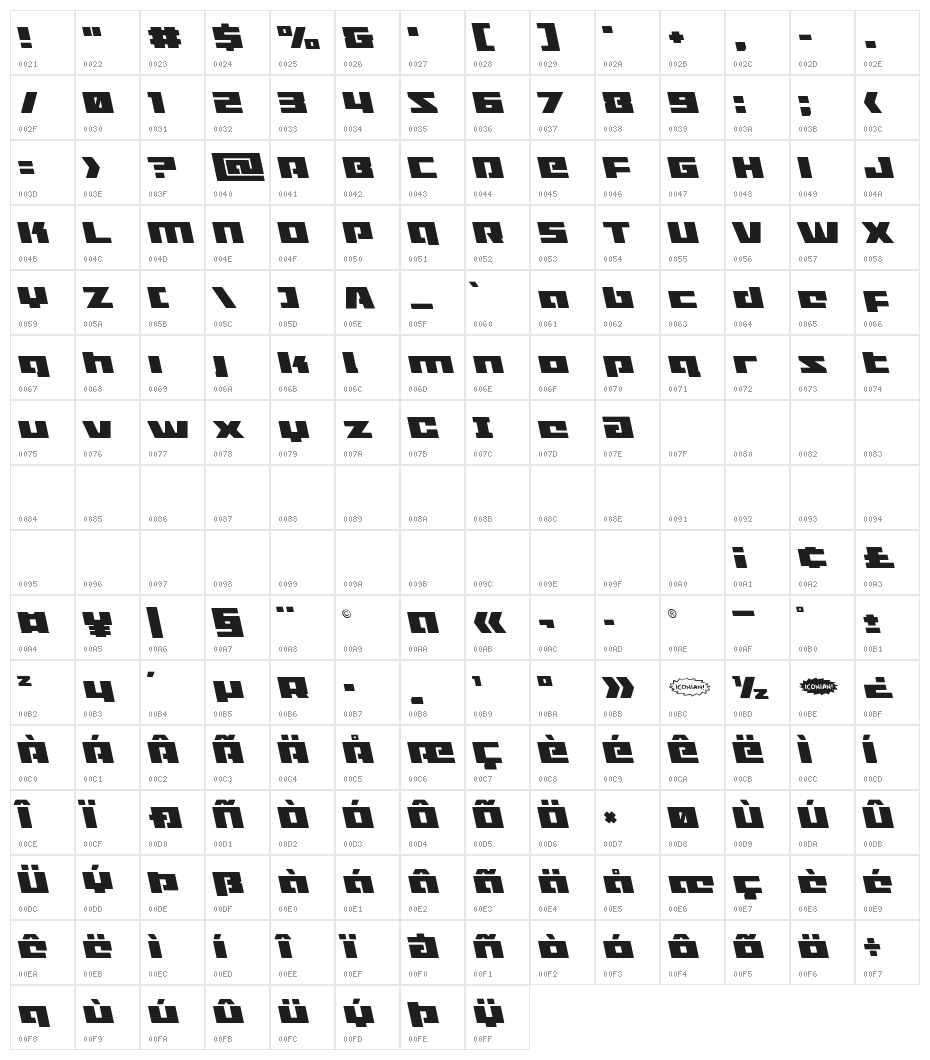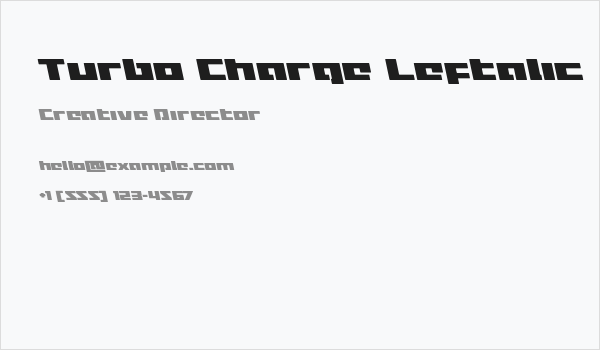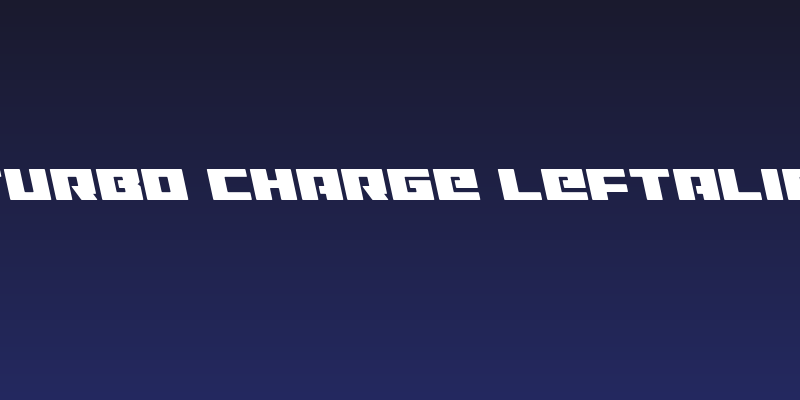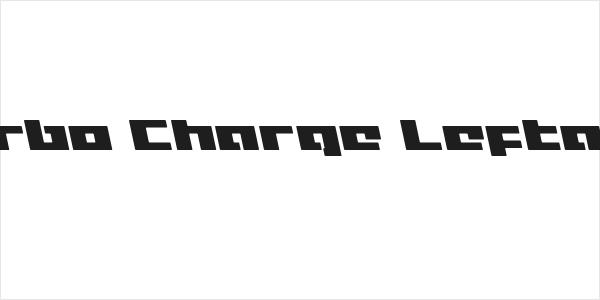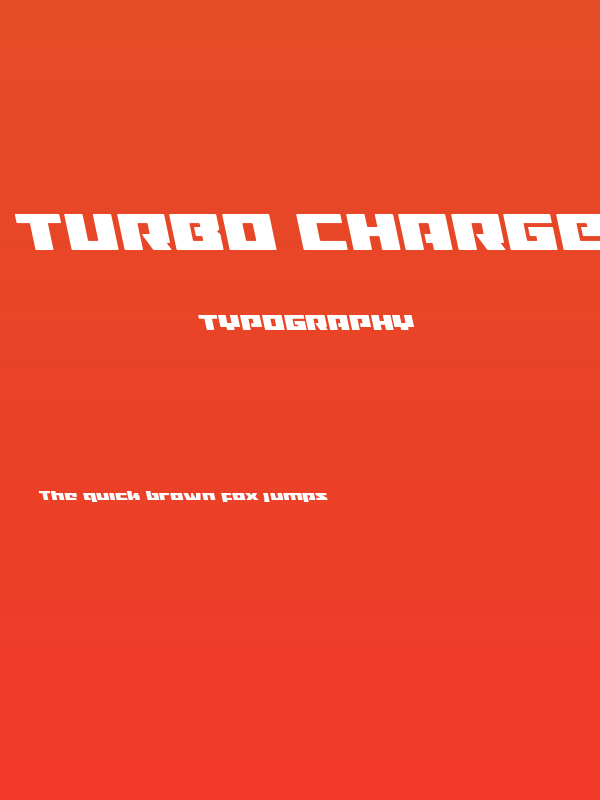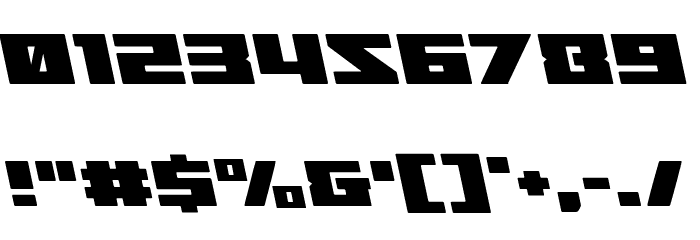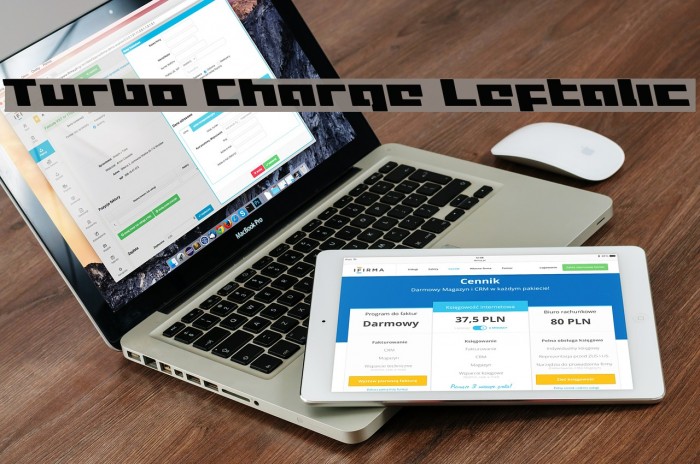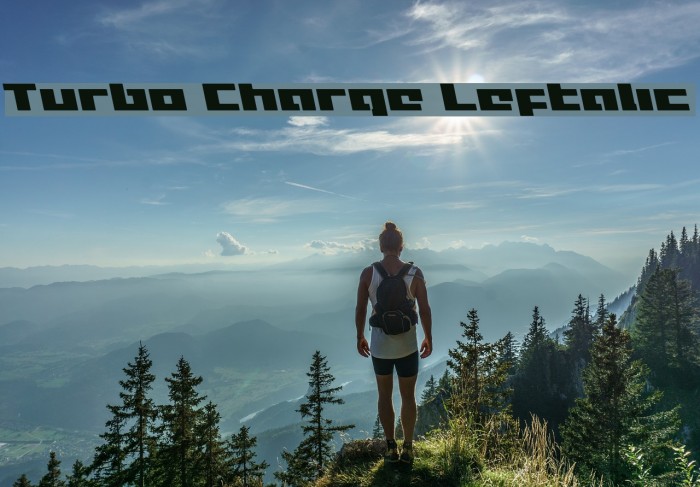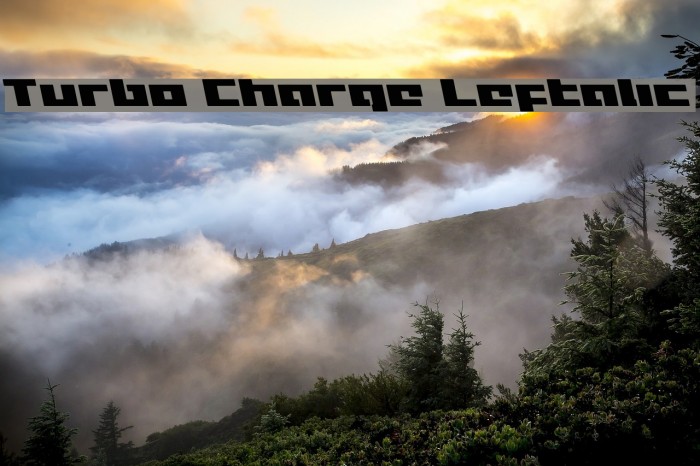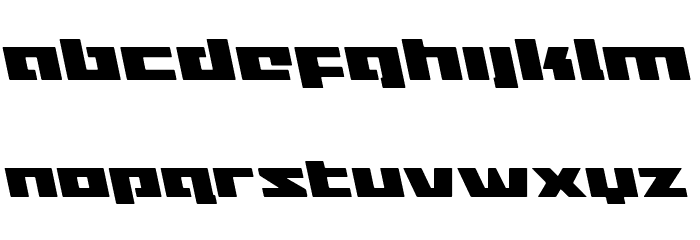
Turbo Charge Leftalic Font
Turbo Charge Leftalic Description
This font exhibits a bold and dynamic style with a futuristic and angular design. The characters are heavily slanted, giving a sense of motion and speed. The geometric shapes and sharp edges contribute to its modern and aggressive appearance. The uppercase and lowercase letters maintain a consistent style, with the lowercase letters slightly more compact. Numbers and special characters follow the same bold and angular theme, ensuring uniformity across all glyphs. The font's design is reminiscent of digital or technological themes, making it suitable for projects that require a strong and impactful visual presence.
| Proposed Projects | Ideal for technology branding, video game titles, sports team logos, and futuristic-themed posters. |